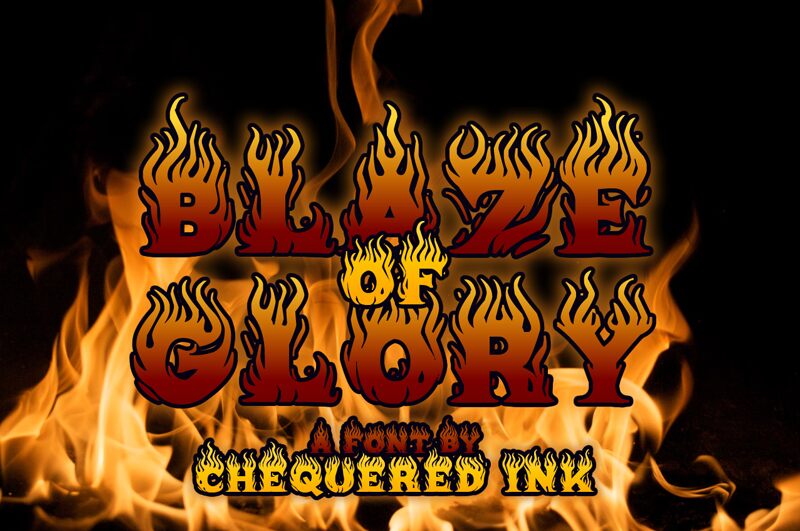
Blaze of Glory font by Chequered Ink is a dynamic and energetic flame-inspired font whose bold appearance captures the intense flow of a roaring fire. Its eye-catching appearance holds a strong modern appeal, adding another level of intensity that amplifies its memorable and dramatic visual impact. Blaze of Glory is definitely a font you should keep in mind for your next typographical project.
The expressive qualities that people most value in Blaze of Glory make it suitable for various design projects that require a higher visual intensity. Consider using it for your next logo, captions, headlines, books or magazine covers, posters, YouTube thumbnails, or album covers. Web design, mobile apps, packaging, and product labeling can also benefit by incorporating it.